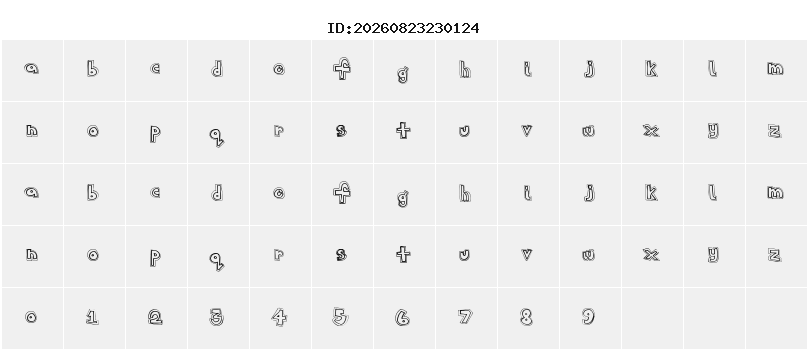
SansCollege Preview
• Font Name: SansCollege
• Font ID: SansCollege:Version 1.00
• Full Font Name: SansCollege
• Version: Version 1.00 December 14, 2012, initial release
• PostScript Name: SansCollege
• Character Count: 68
• Designer: Max Infeld
• Manufacturer: Xerographer Fonts
• Description: This font at in Chico,CA line hand drawn fonts line collage outline comic cartoon
About SansCollege.ttf
SansCollege.ttf is a modern, elegant sans-serif font designed for ultimate readability and visual harmony. Perfect for branding, headlines, web design, and print materials.